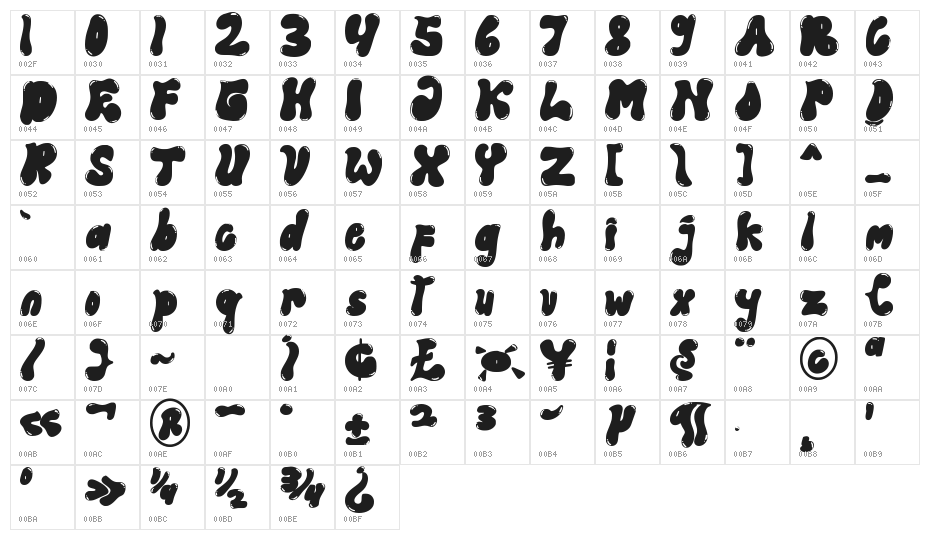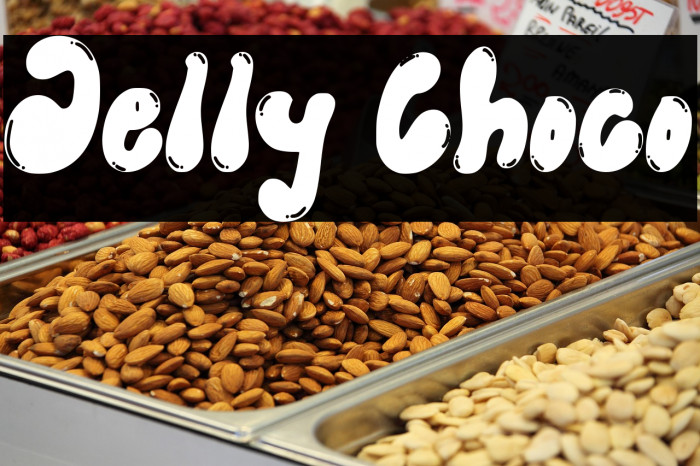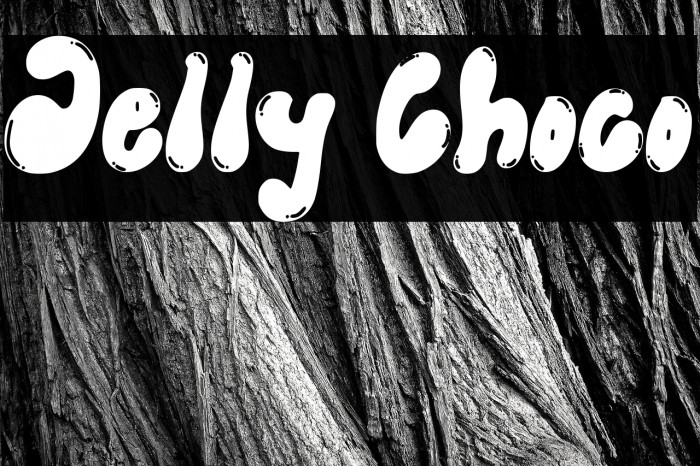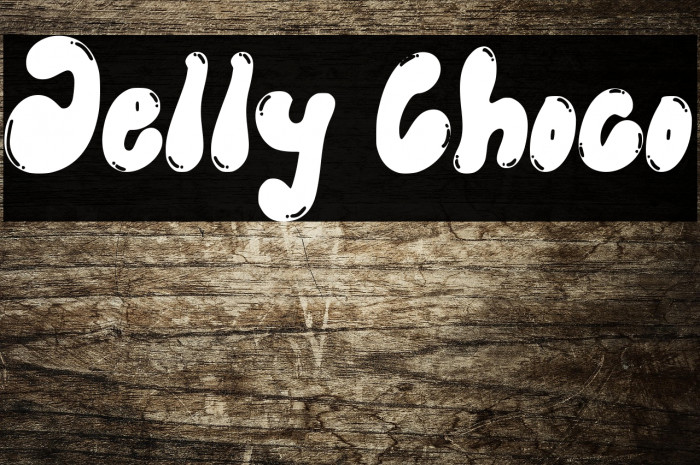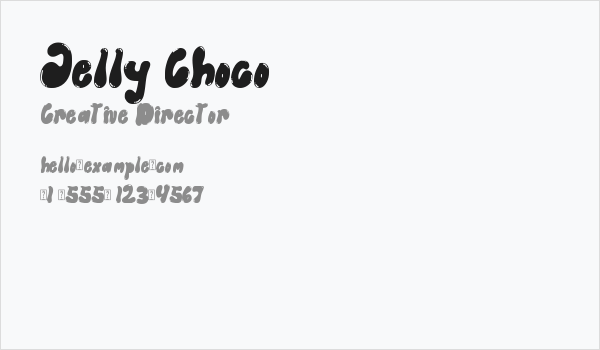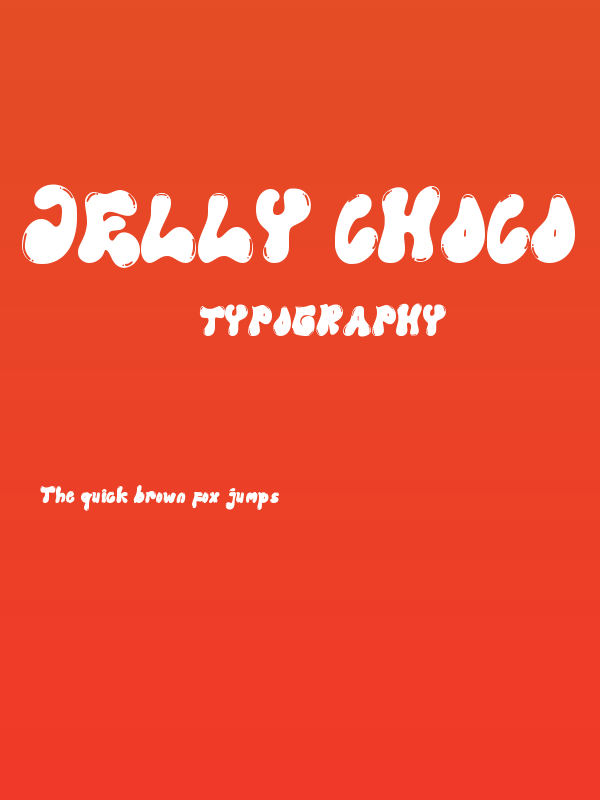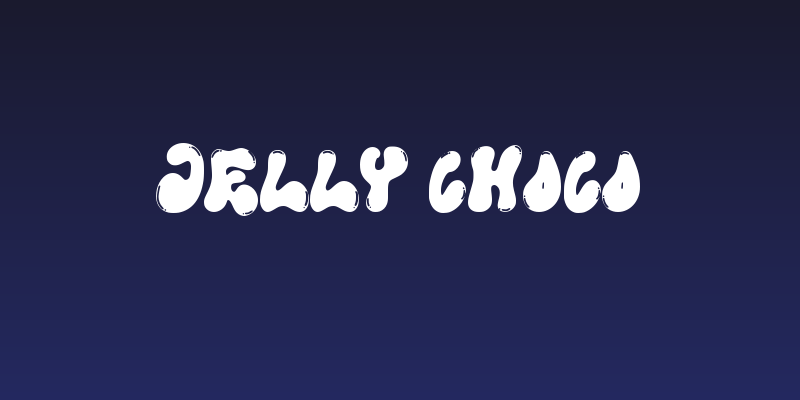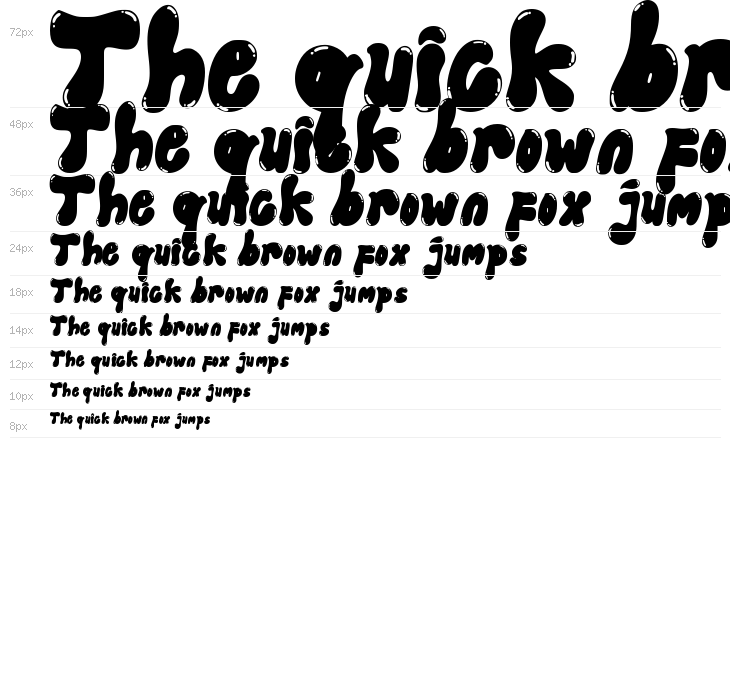
Jelly Choco Font
This playful and bold font features a unique, bubbly design that resembles liquid or jelly forms. Each character is crafted with a rounded, smooth appearance, giving it a fun and whimsical feel. The letters are thick and substantial, with a glossy effect that adds depth and dimension. This font is perfect for capturing attention and conveying a sense of joy and creativity. The characters are closely spaced, enhancing the cohesive and fluid look of the text.
| Overall Style | Playful, Whimsical |
| Proposed Projects | Ideal for children's book covers, playful branding, party invitations, and creative posters. |